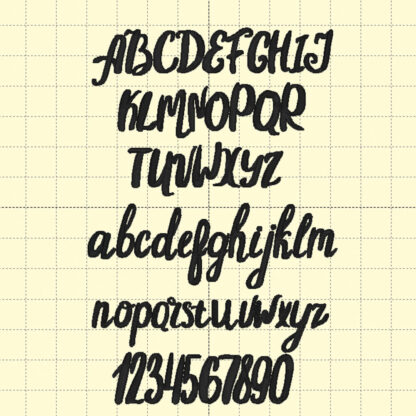
Greenville Script Machine Embroidery Font
A friendly embroidery font for names and words. The Greenville script machine embroidery font has laid back and fun vibe.
A bold, casual and versatile script font